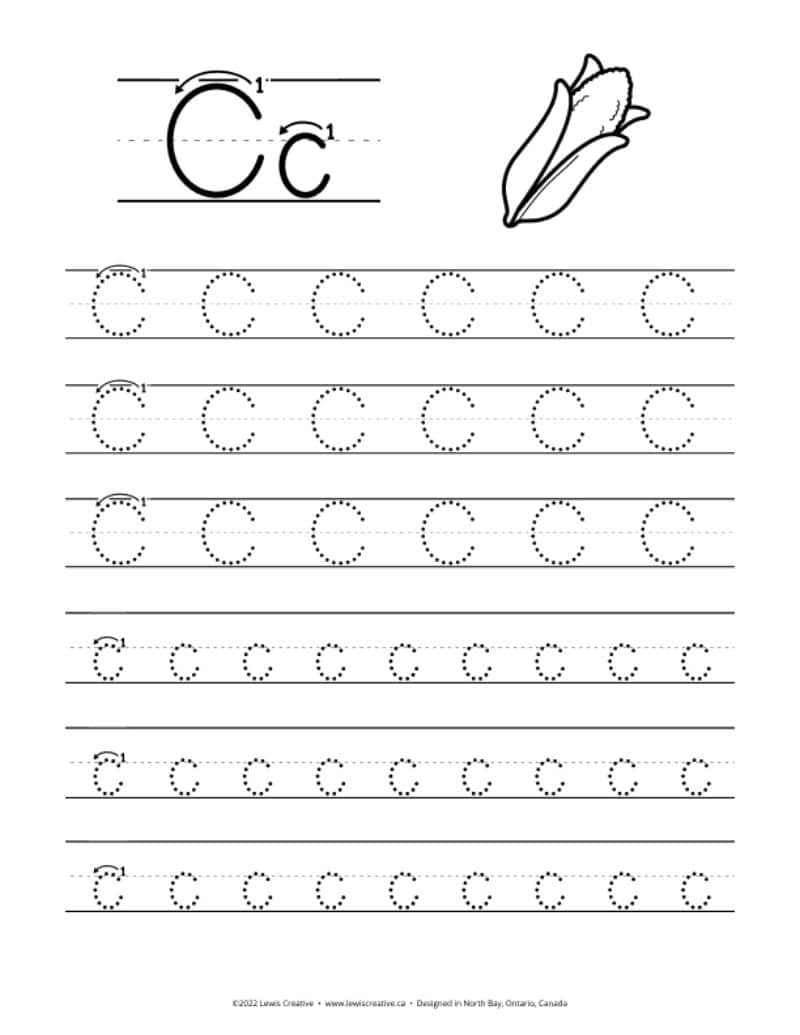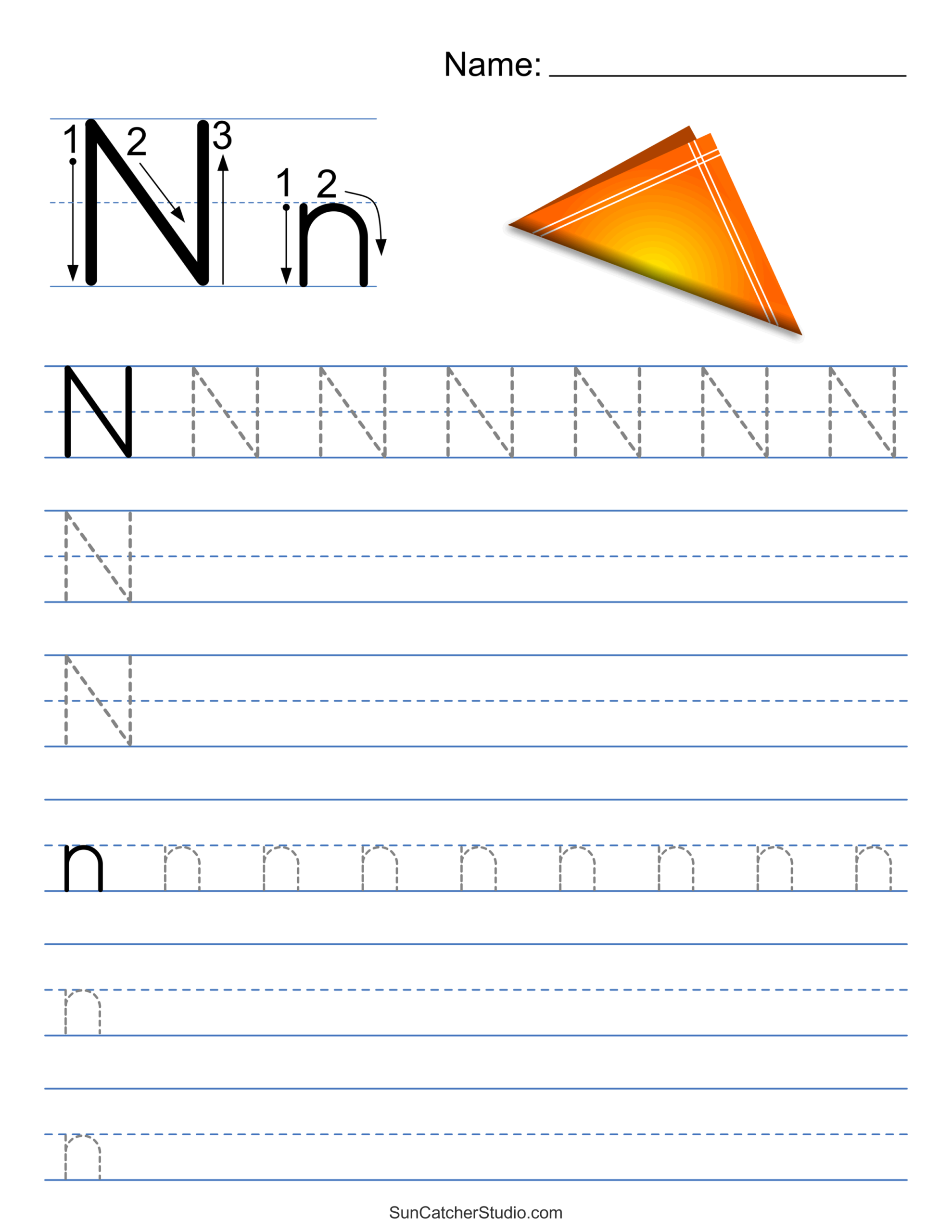
Finding the perfect font can elevate your design projects significantly. Whether you’re working on invitations, posters, or digital graphics, the right font can make all the difference in conveying your message effectively.
Many websites offer free download tracing fonts that you can use in your projects. These fonts come in various styles, from elegant scripts to bold block letters, catering to different design needs.
When selecting a tracing font, consider its readability and how well it fits your overall theme. A good font should enhance your design without overwhelming it. Experiment with different options to find the perfect match.
Additionally, using tracing fonts can inspire creativity. They encourage you to think outside the box and explore new design possibilities. Don’t hesitate to mix and match fonts for a unique look!
In conclusion, free download tracing fonts are a fantastic resource for designers looking to enhance their projects. With so many options available, you’re sure to find the perfect font that suits your style and needs.